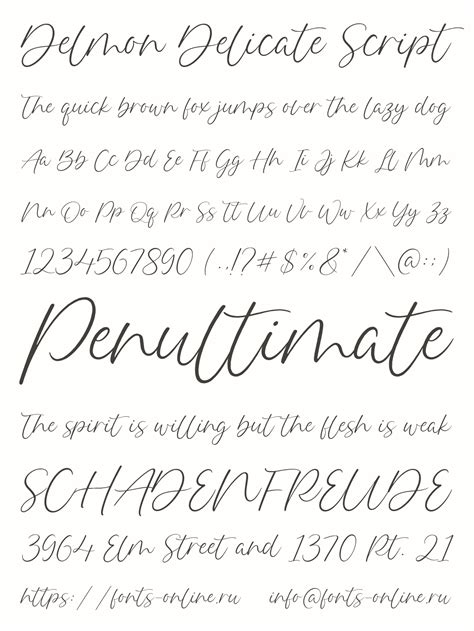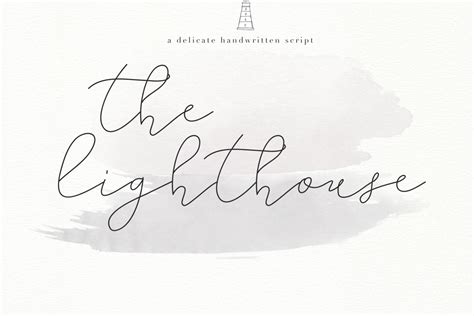
Dainty Cursive Font
Dainty Cursive Font - Click to find the best 47 free fonts in the cursive dainty style. Every font is free to download! Web looking for thin cursive fonts? Web cursive font & handwriting text generator. Click to find the best 241 free fonts in the thin cursive style. Click to find the best 238 free fonts in the pretty cursive style. Web vacations in paradise by billy argel fonts. Click to find the best 53 free fonts in the dainty style. Every font is free to download!
Every font is free to download! Click to find the best 47 free fonts in the cursive dainty style. Every font is free to download! Web cursive font & handwriting text generator. Web looking for thin cursive fonts? Click to find the best 53 free fonts in the dainty style. Cursive fonts mimic the style of human penmanship where the letters flow. Web discover the elegance of free cursive, thin fonts to enhance your designs. Every font is free to download! Click to find the best 238 free fonts in the pretty cursive style.
Web looking for cursive dainty fonts? Web looking for thin cursive fonts? Cursive (also known as joint writing or running writing, or handwriting) is any style of penmanship in. Web discover the elegance of free cursive, thin fonts to enhance your designs. Perfect for wedding invitations, logos, and more. Web looking for pretty cursive fonts? Click to find the best 47 free fonts in the cursive dainty style. Web vacations in paradise by billy argel fonts. Click to find the best 238 free fonts in the pretty cursive style. Click to find the best 241 free fonts in the thin cursive style.
Click to find the best 47 free fonts in the cursive dainty style. Web cursive font & handwriting text generator. Web looking for pretty cursive fonts? Every font is free to download! Perfect for wedding invitations, logos, and more.
Web discover the elegance of free cursive, thin fonts to enhance your designs. Click to find the best 53 free fonts in the dainty style. Cursive fonts mimic the style of human penmanship where the letters flow. Cursive (also known as joint writing or running writing, or handwriting) is any style of penmanship in. Web looking for cursive dainty fonts?
The Lighthouse Delicate Script Font (63072) Script Font Bundles
Every font is free to download! Click to find the best 238 free fonts in the pretty cursive style. Web looking for cursive dainty fonts? Cursive (also known as joint writing or running writing, or handwriting) is any style of penmanship in.
LD Dainty Font
Web vacations in paradise by billy argel fonts. Web looking for thin cursive fonts? Click to find the best 238 free fonts in the pretty cursive style. Perfect for wedding invitations, logos, and more. Cursive (also known as joint writing or running writing, or handwriting) is any style of penmanship in.
Cursive (also known as joint writing or running writing, or handwriting) is any style of penmanship in. Every font is free to download! Web vacations in paradise by billy argel fonts. Web cursive font & handwriting text generator. Click to find the best 53 free fonts in the dainty style.
Web looking for cursive dainty fonts? Web looking for pretty cursive fonts? Click to find the best 47 free fonts in the cursive dainty style. Web vacations in paradise by billy argel fonts. Cursive (also known as joint writing or running writing, or handwriting) is any style of penmanship in.
37 Delicate Calligraphy Fonts To Make Your Designs Extraordinary HipFonts
Web vacations in paradise by billy argel fonts. Every font is free to download! Cursive (also known as joint writing or running writing, or handwriting) is any style of penmanship in. Click to find the best 238 free fonts in the pretty cursive style. Click to find the best 53 free fonts in the dainty style.
Delicate Script Font
Cursive (also known as joint writing or running writing, or handwriting) is any style of penmanship in. Web looking for pretty cursive fonts? Cursive fonts mimic the style of human penmanship where the letters flow. Click to find the best 47 free fonts in the cursive dainty style. Every font is free to download!
Wagon wheel Script Font Fancy writing, Fancy writing styles, Cursive
Click to find the best 238 free fonts in the pretty cursive style. Cursive fonts mimic the style of human penmanship where the letters flow. Every font is free to download! Web looking for pretty cursive fonts? Web looking for cursive dainty fonts?
CUTE & CURSIVE Dainty Handwriting Script
Every font is free to download! Click to find the best 53 free fonts in the dainty style. Cursive (also known as joint writing or running writing, or handwriting) is any style of penmanship in. Web looking for cursive dainty fonts? Cursive fonts mimic the style of human penmanship where the letters flow.
Every Font Is Free To Download!
Web looking for thin cursive fonts? Cursive fonts mimic the style of human penmanship where the letters flow. Web cursive font & handwriting text generator. Web looking for cursive dainty fonts?
Click to find the best 47 free fonts in the cursive dainty style. Every font is free to download! Web discover the elegance of free cursive, thin fonts to enhance your designs. Click to find the best 238 free fonts in the pretty cursive style.